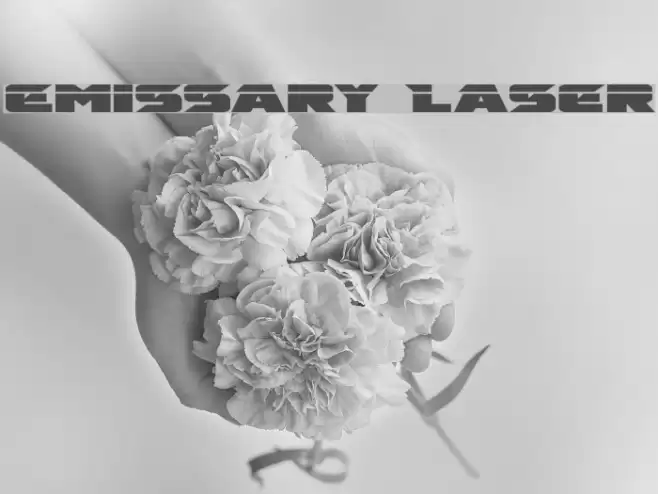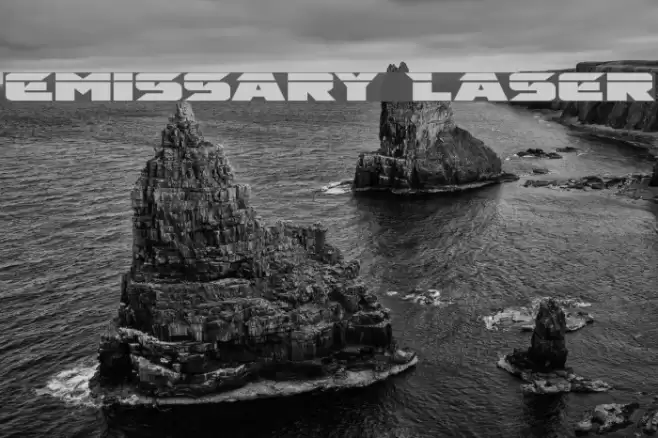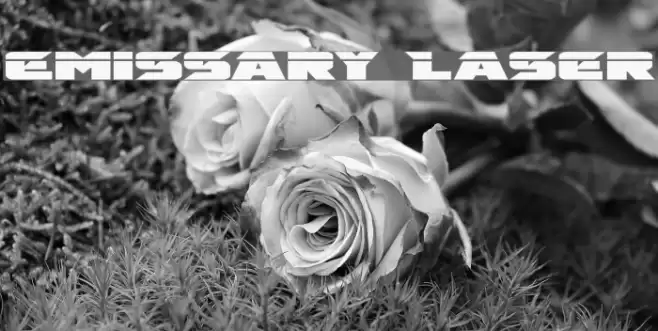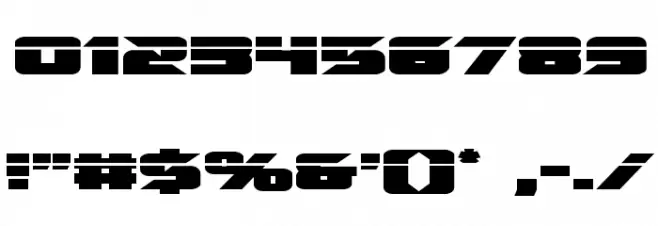
Emissary Laser Font
Emissary Laser Description
This font features a bold, futuristic design with sharp angles and geometric shapes. The uppercase letters are particularly striking, with a strong, industrial feel that suggests speed and technology. The lowercase letters maintain the same angular style, creating a cohesive look across all characters. Numbers and special characters are equally bold and stylized, making them stand out in any design. The font's unique aesthetic is ideal for projects that require a modern, tech-inspired look.
A bold, futuristic font with sharp angles and a tech-inspired design from Uncategorized fonts.
- Proposed Projects: Ideal for technology branding, sci-fi movie posters, video game titles, and futuristic-themed designs.